Retro bold fonts are a powerful design choice that merges the charm of vintage typography with a modern sensibility. This style evokes nostalgia while maintaining a fresh and impactful presence, striking a balance between classic charm and modern sophistication.
- Bold retro fonts combine vintage letterforms with modern standards to shape a timeless look.
- Using retro and bold fonts can attract more audiences because of its familiar look and eye-catching details.
Their thick strokes and eye-catching details make them ideal projects that demand attention without feeling outdated. With carefully selected fonts, you can achieve a bold, expressive look that feels familiar and visionary.
1. Western Retro
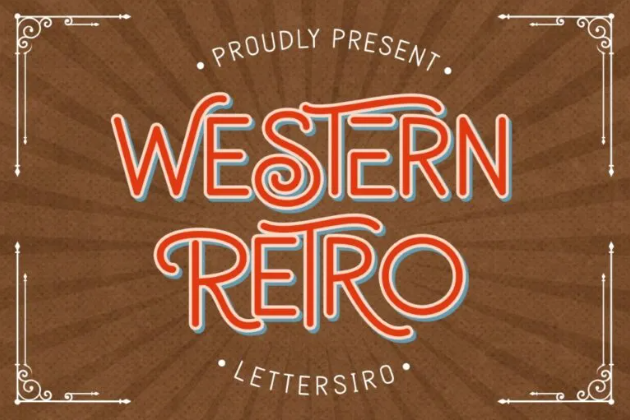
Western Retro is a monoline font with all-caps letters. This font incorporates nostalgic swashes, alternates, and flairs on its tall letterforms.
2. Honey Crafter
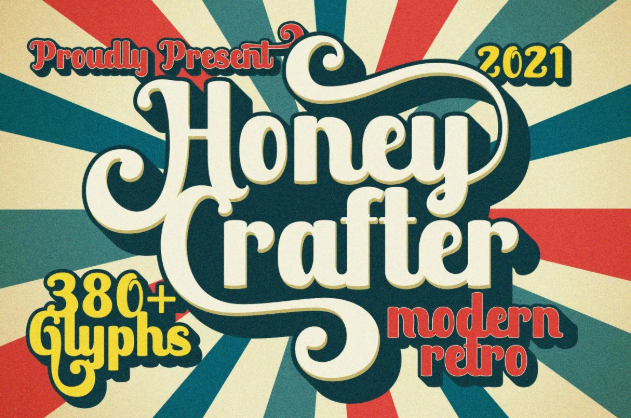
Honey Crafter is the best representation of retro bold fonts. The font has festive swashes, playful characters, and great vibrant color compatibility.
3. Black Street
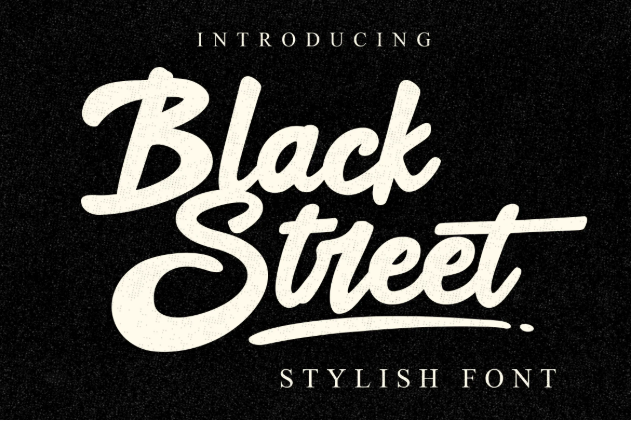
On top of its retro, bold typeface, Black Street has a swag personality. Its oblique configuration adds movement, creating a nostalgic and sporty vibe.
4. The Brocky
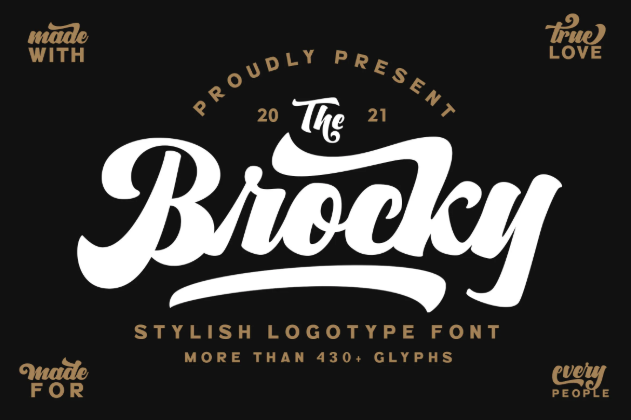
The Brocky offers more sophisticated ornaments. Combining thick and thin strokes, this font masterfully creates elegant letterforms with a confident aura.
5. Paladise
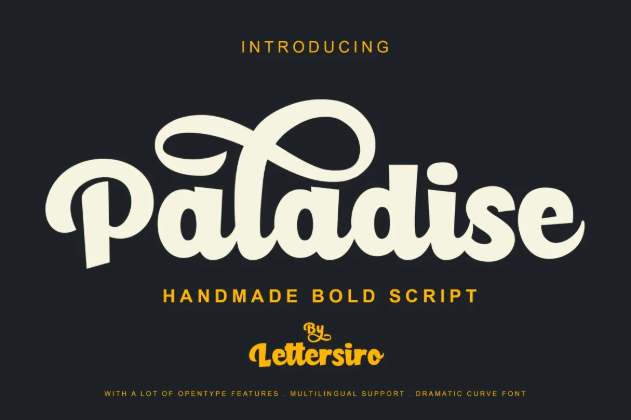
Unlike the typical script fonts, Paladise doesn’t always connect every letter. This font focuses on making readable text with unique, modern ornaments.
6. Bellova
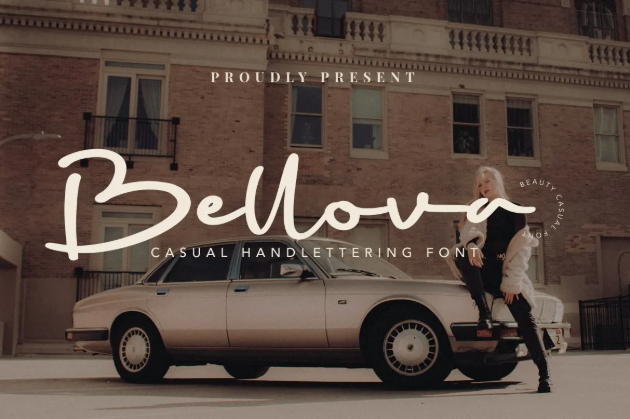
Among our bold retro script font, Bellova always exudes a romantic feel. With its sincere typeface, this faux script font is best used for an intimate design.
7. Zembood
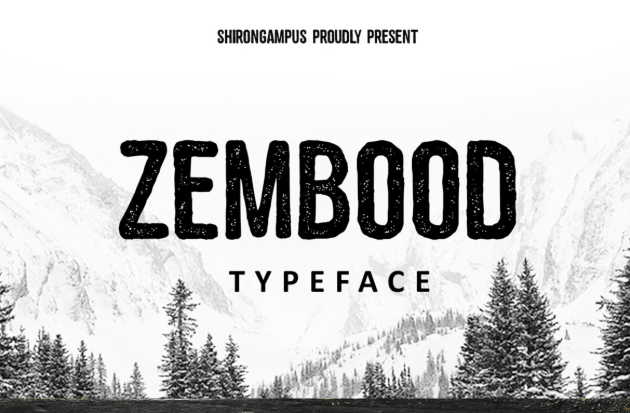
Zembood is the rugged and adventurous option in our bold retro font list. Each letter can be textured and has unrefined edges.
8. Hunters
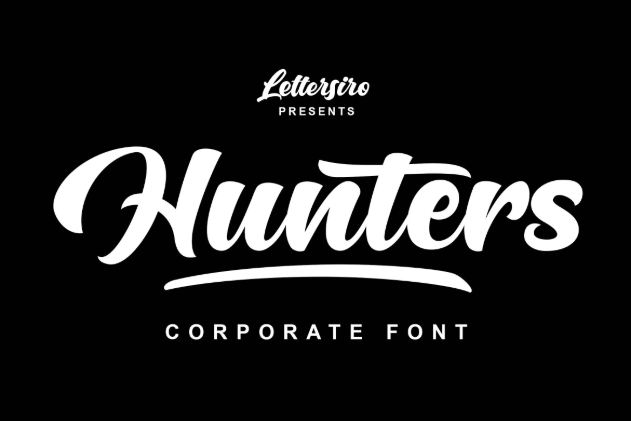
Hunters font is the best seller in this list. This font combined elegance with precision, resulting in two stylish brush script typefaces, the regular and slim versions.
9. Nightland Script
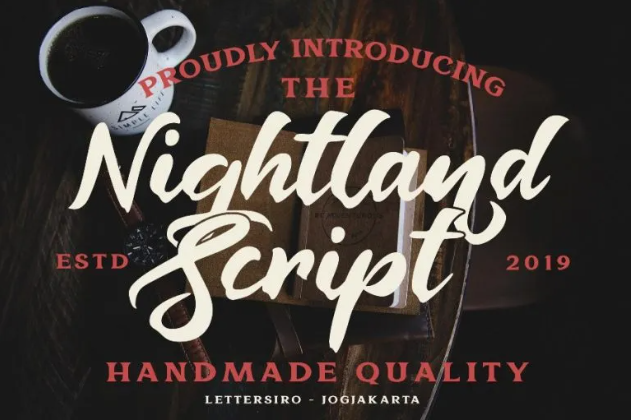
Nightland Script is a versatile font, this font can fit into artsy to professional concept. With its artistic flair, this font rivals modern calligraphy fonts.
10. Aged Machine
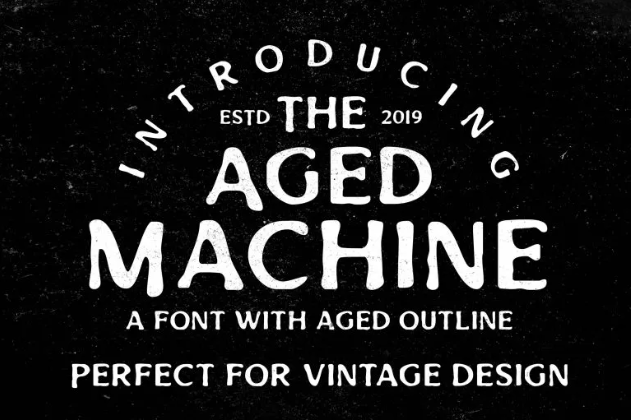
As the name suggests, Aged Machine mimics an aged typography look. This is an all-caps font with rugged edges yet proportionate letterforms for a modern design.
11. Kiss Melody
One word to describe Kiss Melody would be fabulous. Among our retro bold fonts, this font has the most fun look with its extraordinary swashes and ornaments.
12. Bio Monster
Bio Monster balances retro typefaces with modern aesthetics, creating a timeless contemporary visual.
13. Vintage Quotes
Vintage Quotes is a stylish script font. Its thickness and typeface are made by mimicking a wet watercolor look, adding a natural human touch to its visual.
14. Sandiego
A new typeface on our list with signature font, Sandiego, uses a bold, brushed look, adding a retro feel to this typeface.
15. Gotten Say
Gotten Say is a stylish marker font with the 80s aesthetics. This font mimics the typical writing on a cassette tape, bringing back the romantic and intimate feel of the past.
16. Raster Slice
Raster Slice combines handwritten and script typefaces. The font just connects some letters, enhancing readability. Plus, this font has professional letterforms.
17. Best Rock
While looking retro, Best Rock also exudes grunge and daring vibes. If you aim for classic letterforms on a modern design, its elegant flairs can fulfill your needs.
18. Rallian
Rallian has thick brush strokes, combined with elegant letterforms. Although not completely retro, this font teeters the line between vintage and modern look.
19. Maillove
For a classic yet modern design, you can’t pass up on retro bold fonts like Maillove. This font exemplifies delicate strokes, balancing elegance and vintage look.
20. Santiago
Santiago is a handwritten font with a signature-like look, displaying bold, confident strokes while including natural imperfect letterforms.
21. Blank Smile
Blank Smile is a bold script font with retro and modern visuals. This font uses a uniform thickness throughout and clean edges, resulting in a beautiful appearance.
22. Signatour
Signatour is a signature font with extreme dynamics between cases. This font is mostly modern look with textured brush fill.
The Fresh and Familiar Aspects of Retro Bold Fonts
This style has a unique way of bringing together the warmth of vintage design with the sleekness of modern minimalism. Their bold strokes add a sense of familiarity, while their refined details keep them relevant for today’s creative landscape.